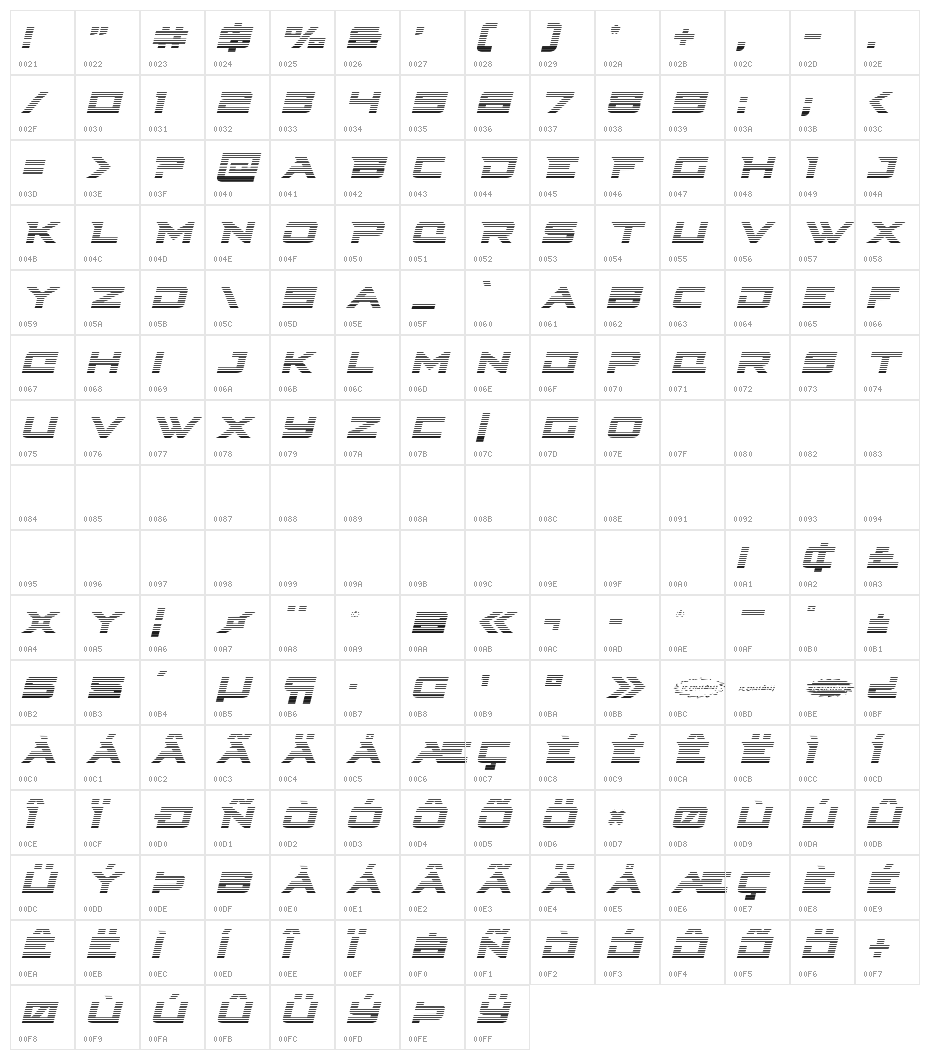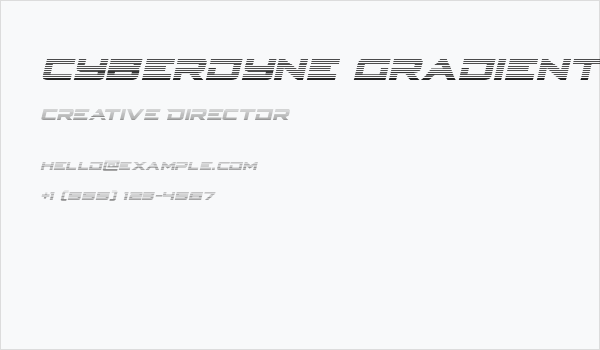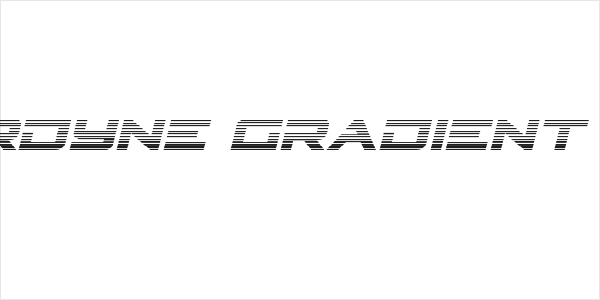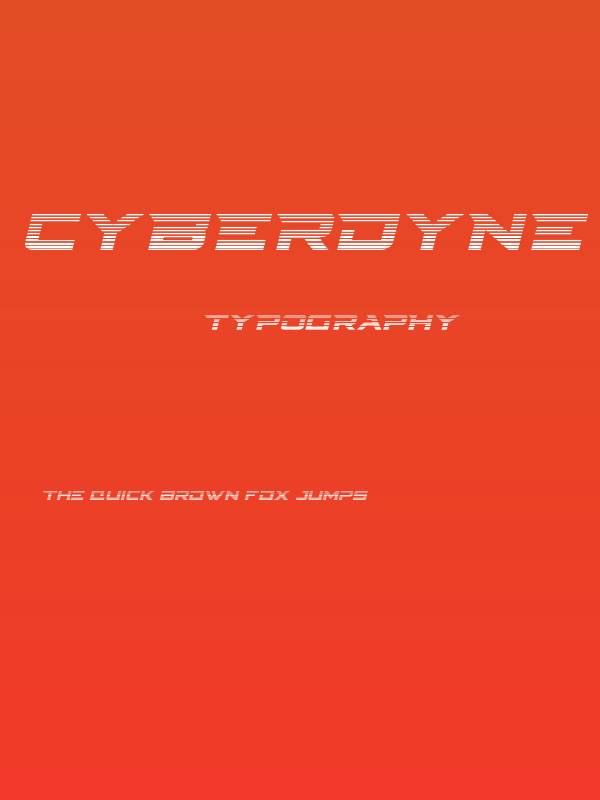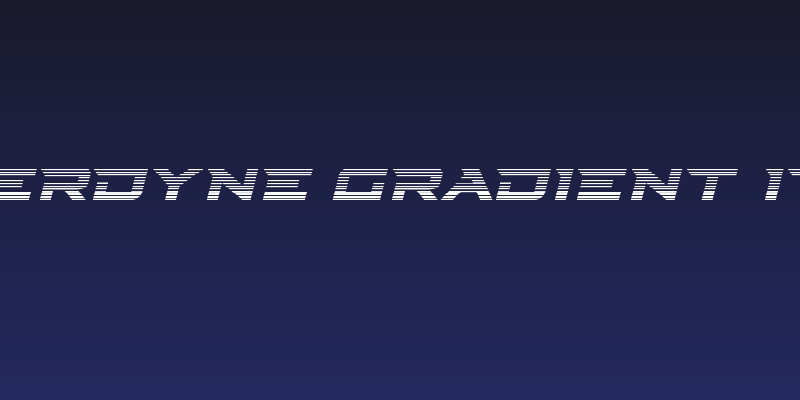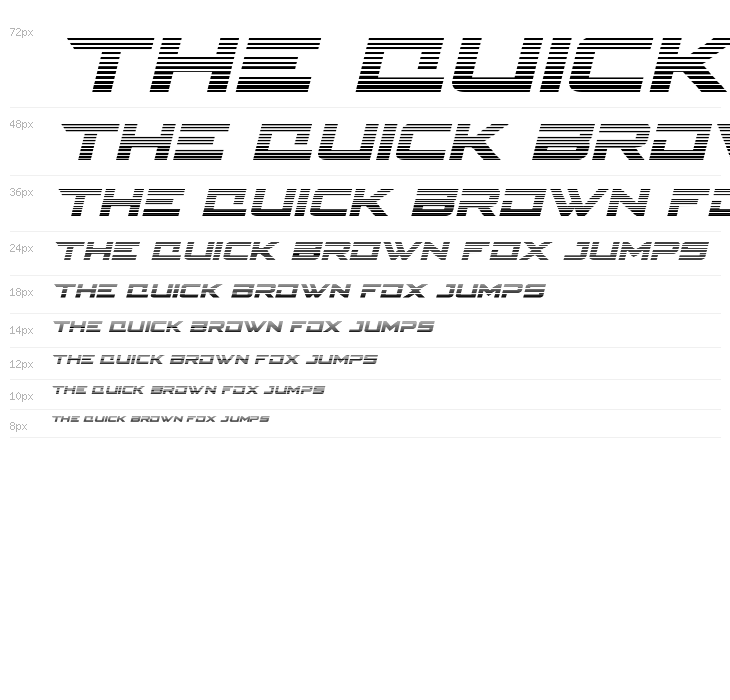
Cyberdyne Gradient Italic Font
Cyberdyne Gradient Italic Description
This font features a futuristic and dynamic design with a distinct italic slant, creating a sense of motion and speed. The characters are composed of parallel lines that form a gradient effect, enhancing the modern and technological aesthetic. The uppercase and lowercase letters maintain a consistent style, with sharp angles and clean edges. The numerals and special characters follow the same design principles, ensuring uniformity across all glyphs. This font is ideal for projects that require a cutting-edge, digital look.
| Proposed Projects | Ideal for technology branding, sci-fi movie posters, video game titles, and digital product packaging. |